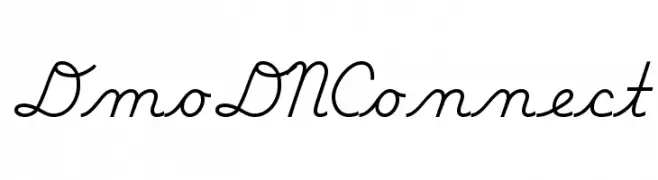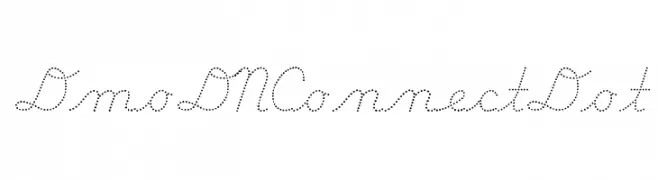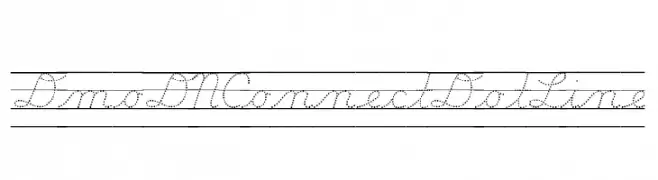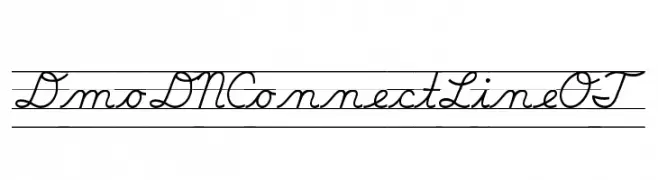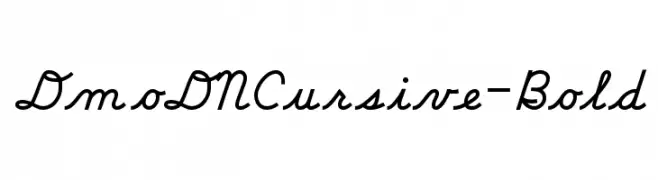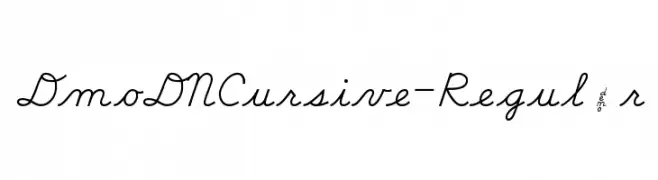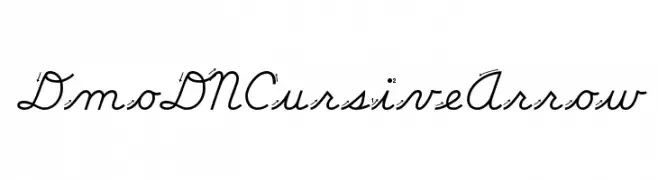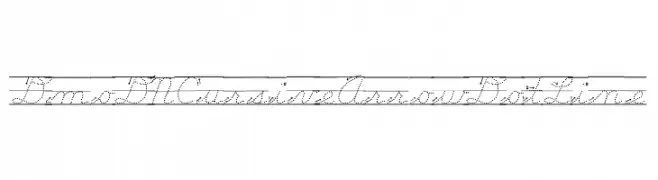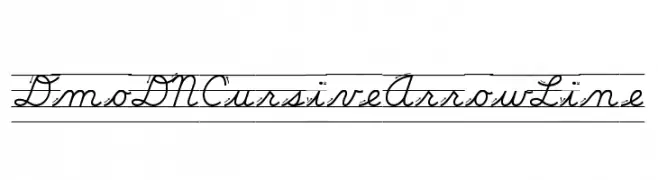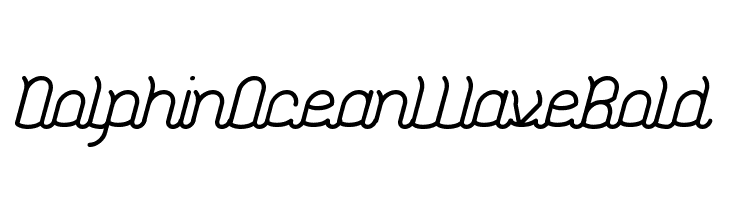
A cursive, elegant font with a consistent slant and smooth curves.
A playful dotted font with a consistent, slanted style.
A dotted line font resembling connect-the-dots, ideal for educational and playful designs.
A classic cursive script font with smooth, flowing lines and elegant connections.
A bold, cursive font with smooth, flowing lines and seamless connections.
A graceful cursive font with smooth, flowing lines and elegant curves.
A cursive font with elegant, flowing lines and connected characters.
A dotted cursive font with directional arrows, perfect for handwriting practice.
A dotted cursive font designed for handwriting practice and education.
An elegant cursive font with a classic, flowing script style.